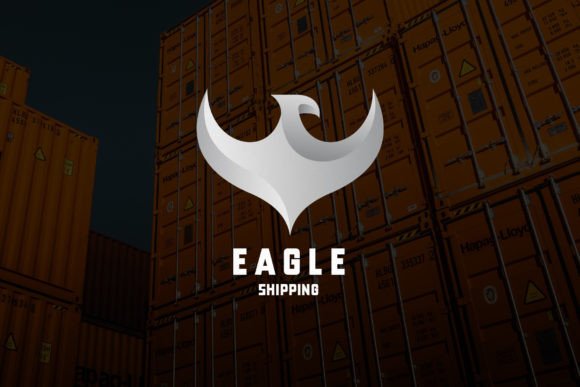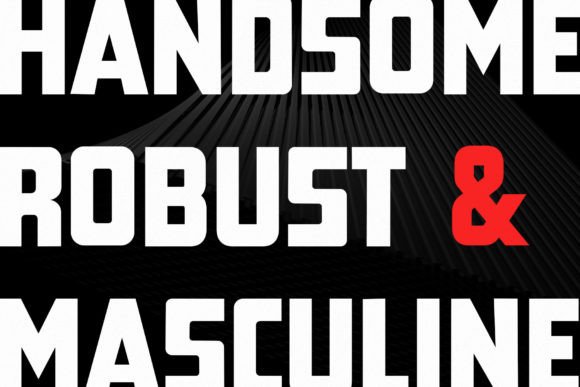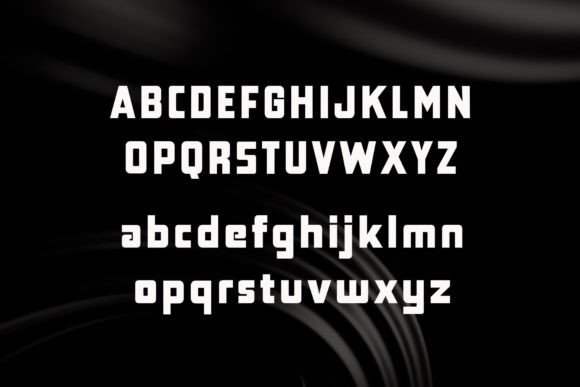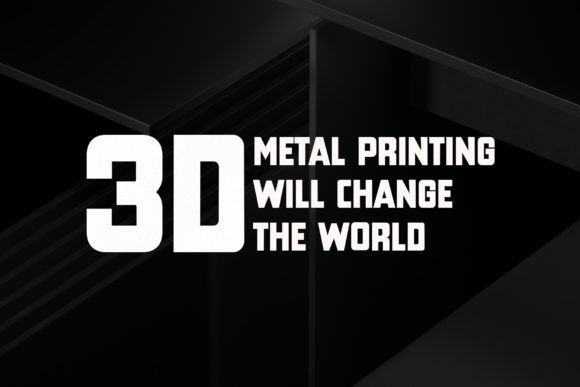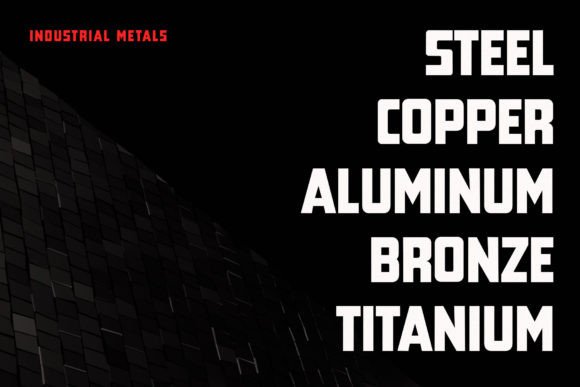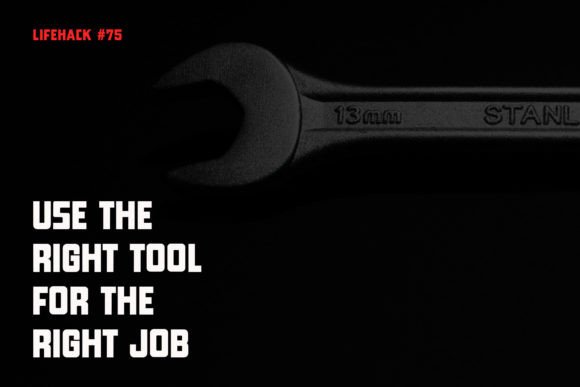
Unlocking the Perfect Design: The Power of Bernard Font
Have you ever stared at a blank canvas, feeling the pressure to create something truly remarkable? For designers, this moment is all too familiar. The blank page can be intimidating, but what if you had the perfect tool to bring your vision to life? Enter Bernard Font, a robust and masculine display typeface designed to captivate audiences in various creative fields.
Bernard Font is more than just a font – it’s a key to unlocking your design potential. Whether you’re working on a futuristic film, a science-based UI/UX application, or a video game that’s out of this world, Bernard Font is the perfect companion. Its clean and clear design ensures that your message is conveyed with precision, making it a valuable asset for designers who want to make a lasting impression.
Bernard Font Key Features
- Font Family: Bernard is a sans-serif font family designed for digital use.
- Font Sizes: Offers a range of font sizes, from 8 points to 72 points, with scalable options.
- Resolution: Optimized for high-resolution displays, suitable for use on screens with a resolution of 72 dpi to 300 dpi.
- Unique Characteristics: Bernard features a clean, modern design with a unique blend of geometric and rounded shapes, making it highly legible in digital environments.
Designer Review: Bernard Font
I recently had the chance to work with Bernard Font, and I must say it’s a solid choice for your next project. Here are some pros and cons that I’ve observed.
- Legibility: Bernard Font is highly legible, making it perfect for body text or long passages.
- Neutral Style: Its neutral style allows it to blend in seamlessly with any design.
- Large x-height: This makes it easy to read, especially for longer blocks of text.
- Lack of Expressiveness: Bernard Font is a bit too neutral, making it less expressive and less memorable than other fonts.
- No Distinct Personality: While it’s great for blending in, it doesn’t really stand out in any way.
Overall, I’d give Bernard Font 3.5 out of 5 stars. It’s a reliable choice for any project that needs a clean and neutral font. However, if you’re looking for something with a bit more personality, you might want to consider other options.
The Bernard font is ideal for use in graphic design projects, such as brochures, posters, and business cards. It is also suitable for use in digital design projects, such as websites and social media graphics.
For best results, use the Bernard font in conjunction with other design elements, such as bold typography and bright colors.
Bernard Font has a total of 24 styles, including regular, bold, italic, and bold italic. It supports a wide range of languages, including Latin, Greek, and Cyrillic. The font also includes advanced OpenType features, such as ligatures and swashes.